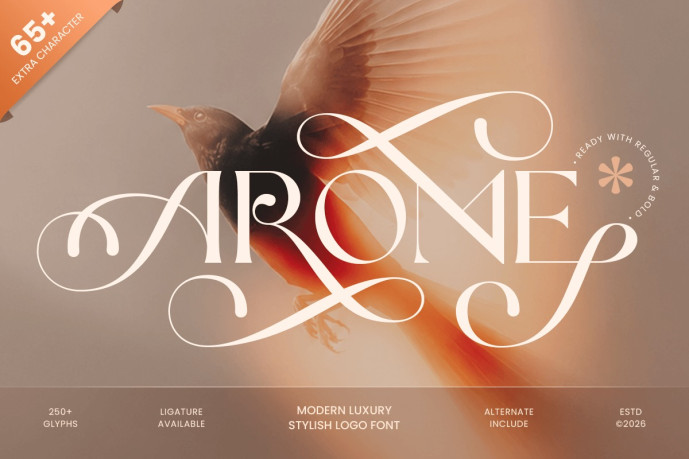
Arome Typeface
Designer: HamzStudio
Arome Typeface is a modern and elegant logo font designed to bring sophistication and contemporary beauty to your branding projects. Featuring refined letterforms, balanced proportions, and graceful details, this typeface is ideal for luxury brands, fashion brands, and editorial layouts.
Designed for designers who appreciate elegance and versatility, AROME offers a refined visual presence that is both modern and timeless. Its clean structure allows it to work perfectly on logos, headlines, invitations, websites, and marketing materials, creating a strong and memorable identity.
Whether it’s creating a luxury brand, designing a fashion campaign, or creating elegant editorial content, AROME offers the perfect balance between modern minimalism and sophisticated charm.